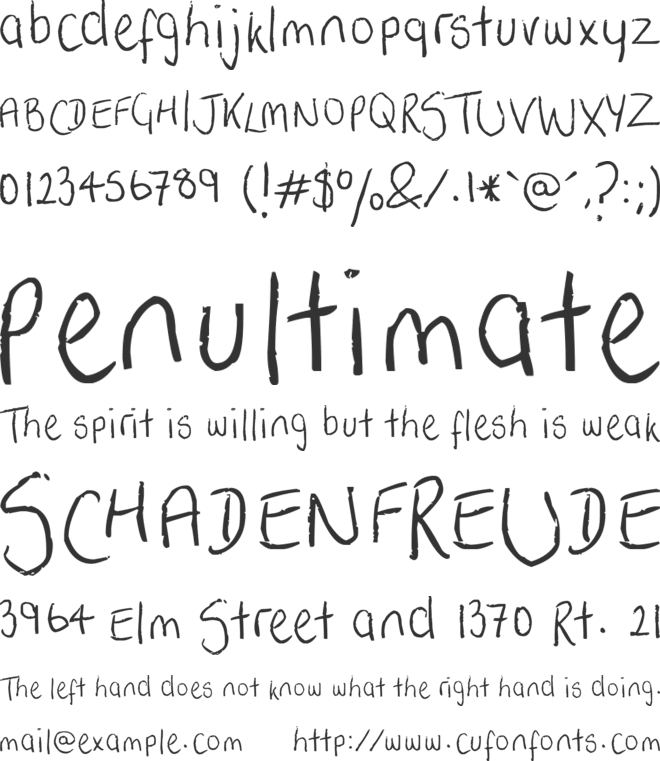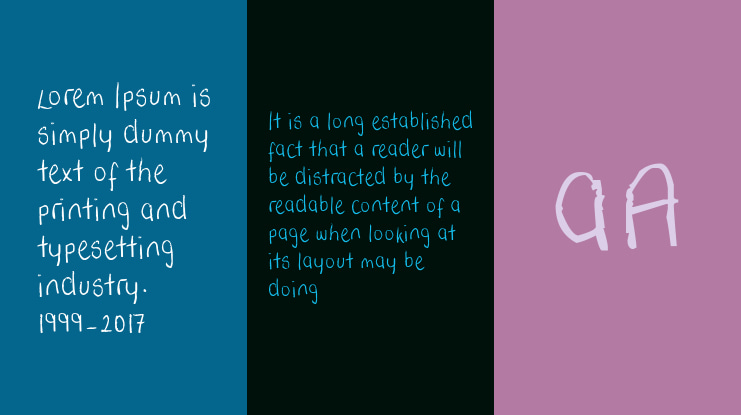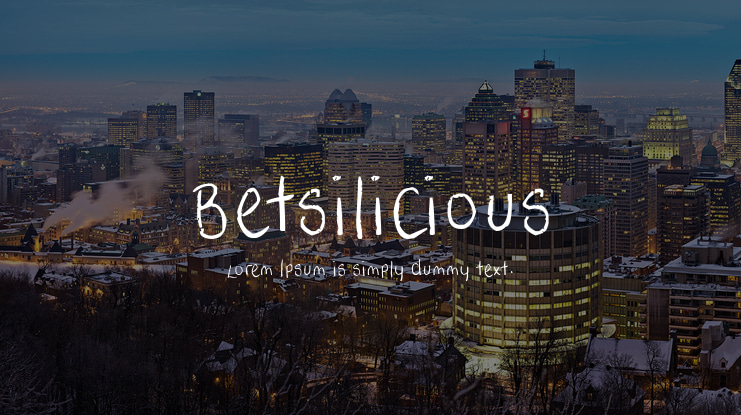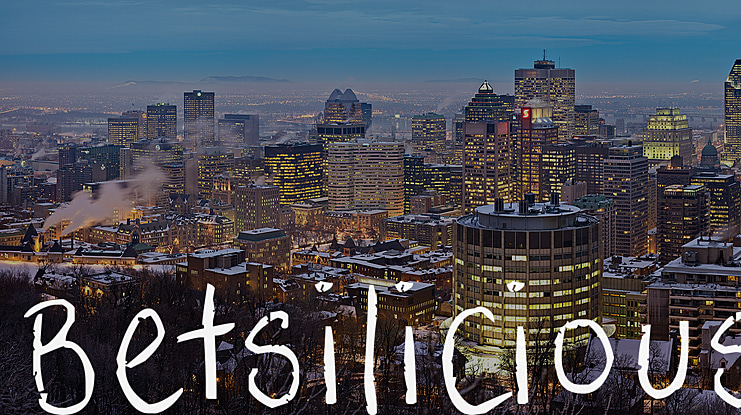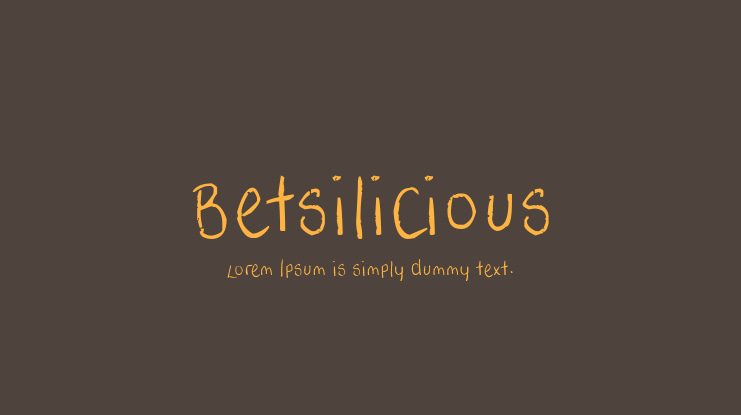
Betsilicious Font
This gorgeous handwriting font keeps uppercase and lowercase letters at a similar height for a captivating effect. We love the genuineness of this one.